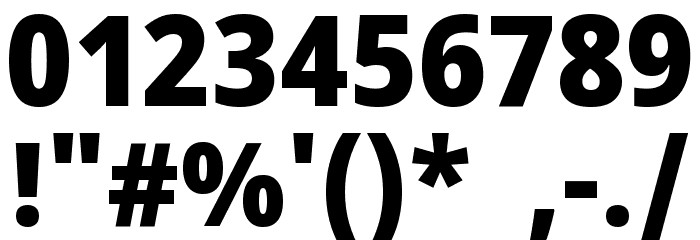
Noto Sans Sinhala UI SemiCondensed Black Font
This font features a bold and robust design, characterized by its thick strokes and strong presence. The numerals are particularly striking, with a uniform thickness that ensures readability and impact. The special characters are well-defined, maintaining the font's overall bold aesthetic. This style is ideal for making a statement, with its semi-condensed width allowing for efficient use of space without sacrificing legibility.
A bold, semi-condensed font with strong, uniform strokes.
- Proposed Projects: Ideal for headlines, posters, and branding materials where a strong visual impact is needed.